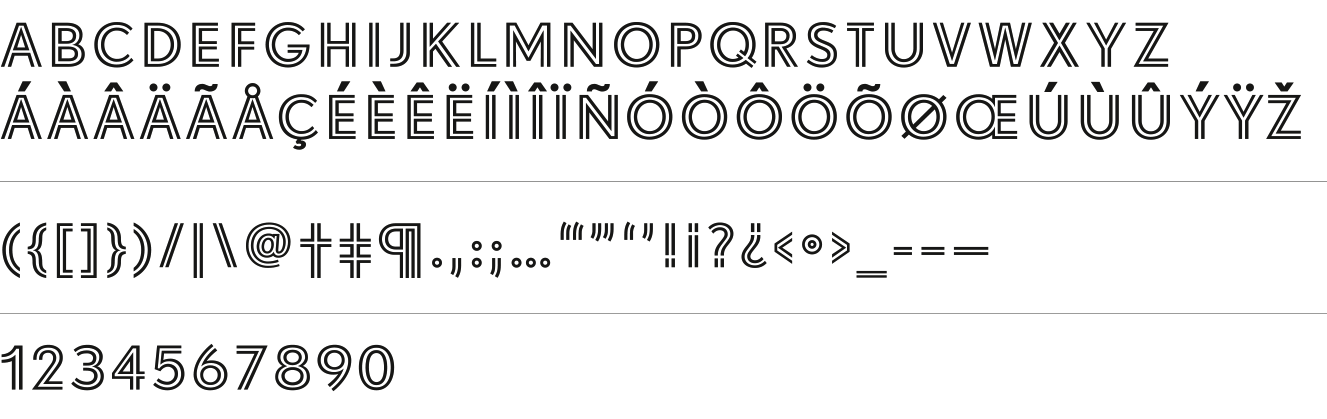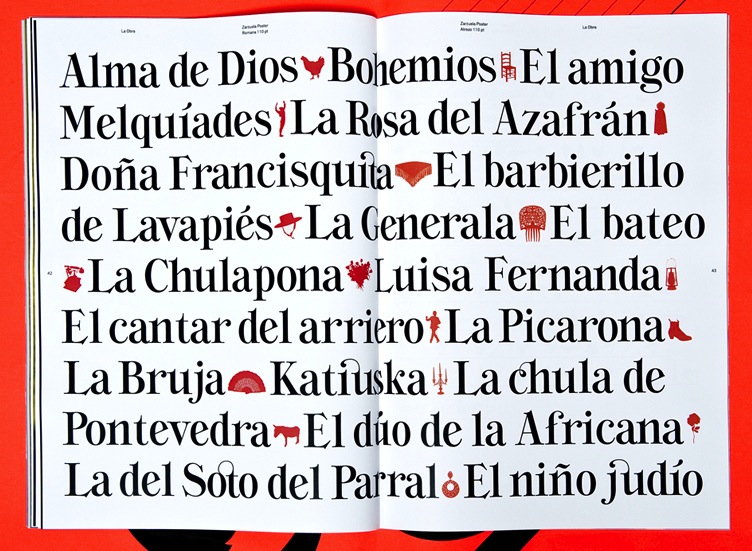
Carles Rodrigo
Carles Rodrigo (Mucho) won a D&AD 2011 award in the typeface design competition for his Art Out. He set up Carles Rodrigo Studio in London, and specializes in branding and corporate type design. His creations there are visually striking:
• Splash Rounded. Corporate type design for Barcelona-based LED screen display company. Planned as a rounded version of Avant Garde.
• Peppurat Outline (2011). Headline typeface especially designed for the book "Pepe Andreu---Thinking Furniture". The typeface was planned as an outline version of Akkurat.
• Primera Bold. A stencil didone designed for the Primero Primera Hotel.
• Lexus Inline. Corporate identity type design for Lexus Design Awards, which took place in Tokyo.
• Art Out (2010). A blackboard bold typeface that was created for Fundación Arte y Mecenazgo in Spain.
• Monaco Book (2015). An art deco sans based on Geo Ham's racing posters from the 1930s.
• Zarzuela Poster (2009). Typeface developed for hypothetical rebirth of Zarzuela. an important genre of Spanish folklore. The structure of the typeface is based on the genre's 17th century origin, and is a hybrid between the transitional roman and the didone.
• Bhldn Display (2015). An extreme contrast custom fashion mag and wedding typeface in five styles based on Hoefler Display. It was created for an American clothing company.
• Sarda Display. This display typeface was especially developed for the book "Andres Sarda Moda Amor Arte". It is based on ITC Grouch (1970, Ronne Bonder and Tom Carnase).